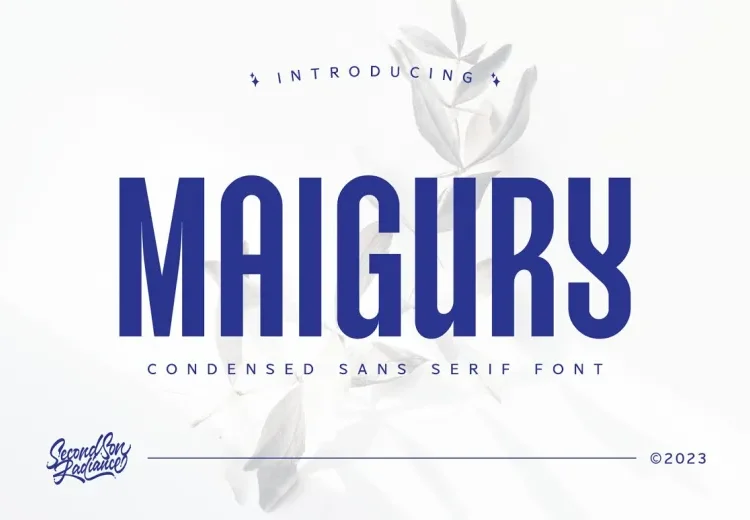
Maigury Font
Maigury is a refined and captivating sans serif font that draws inspiration from Japanese aesthetics. Designed to embody luxury and elegance, it’s particularly well-suited for feminine and upscale designs. With its graceful yet contemporary style, Maigury is perfect for a range of creative projects, including logo branding, modern advertising, and travel or holiday-themed designs.
The font’s versatility shines in various mediums, such as fashion, film, and animation titles, as well as book or fantasy novel covers. It’s equally ideal for website editorial layouts, blog designs, and elegant stationery like cards and invitations. Whether you’re crafting visual identities or enhancing editorial content, Maigury delivers a touch of sophistication to every project.